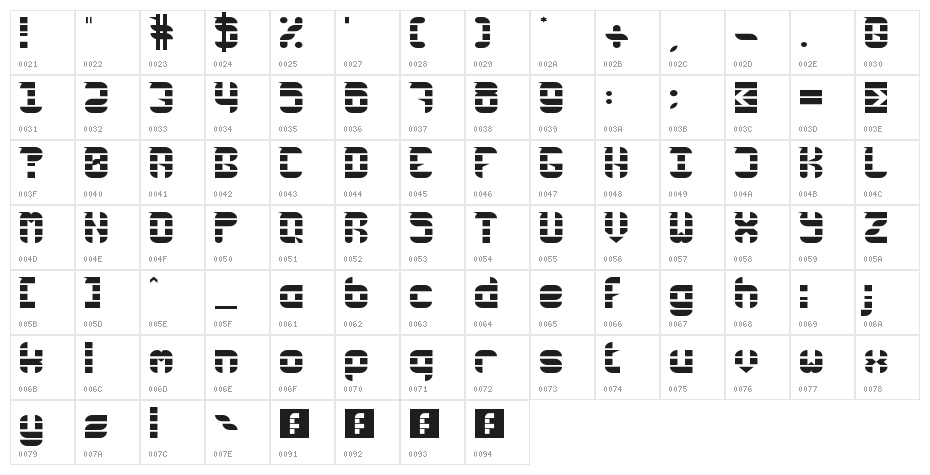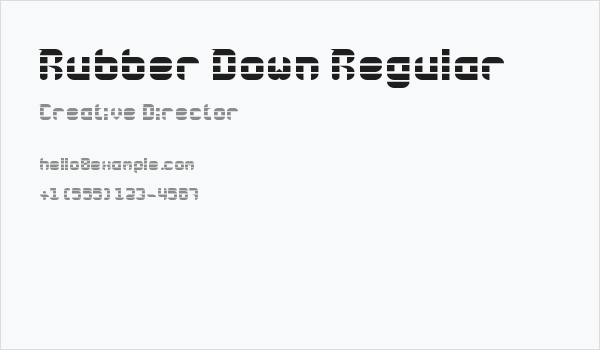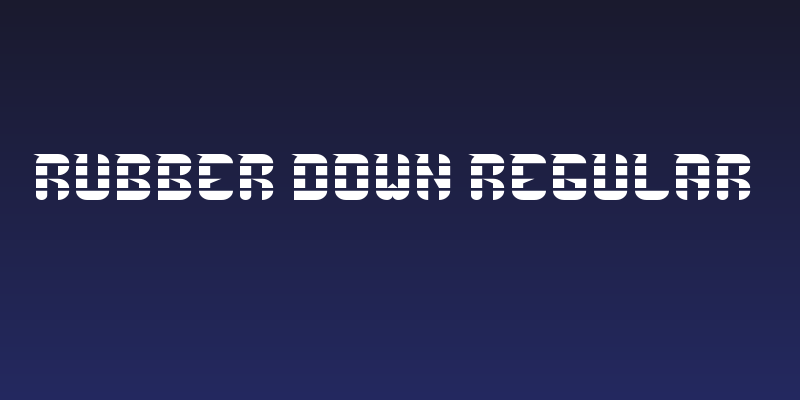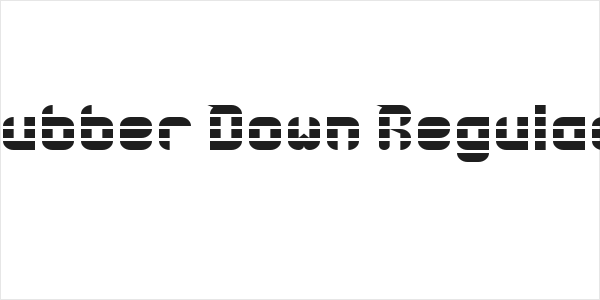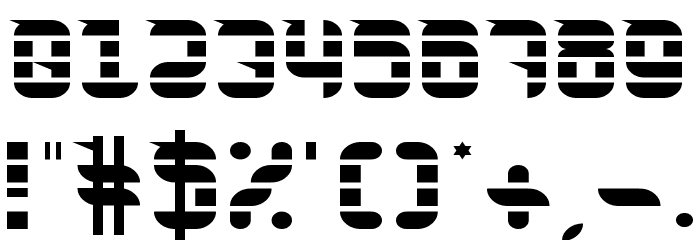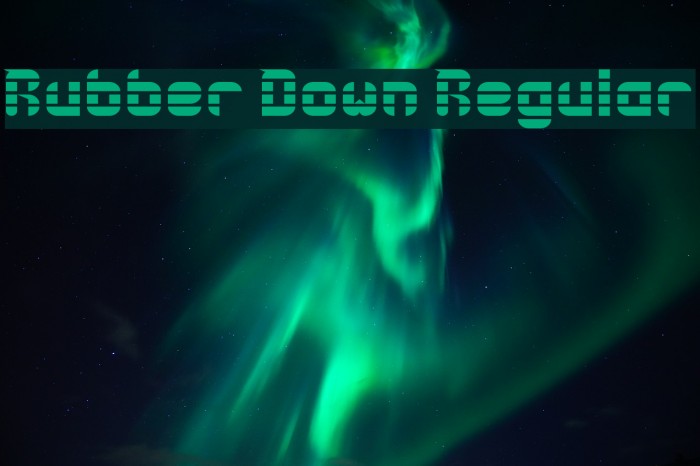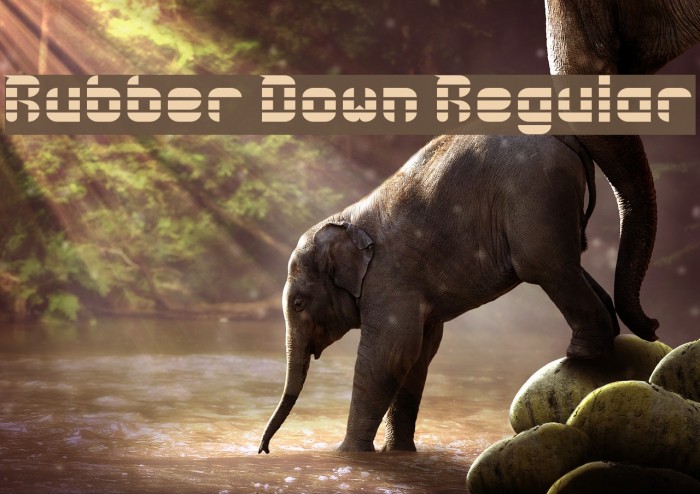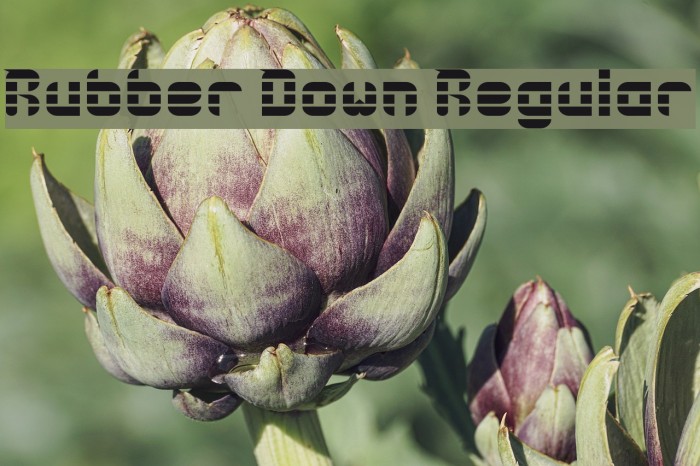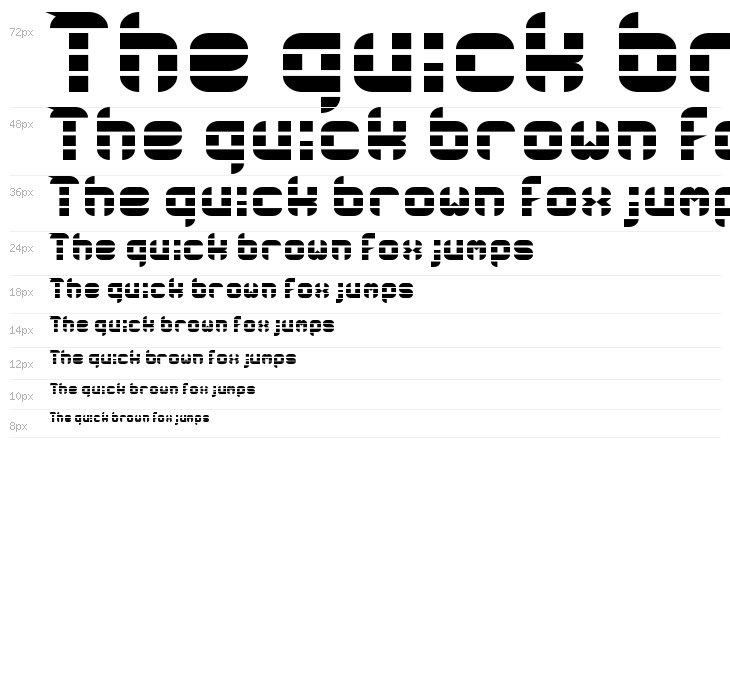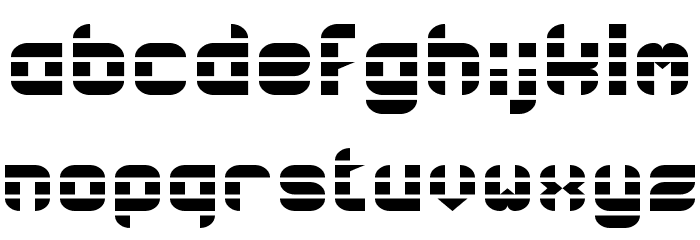
Rubber Down Regular Font
Rubber Down Regular Description
This font features a bold, geometric design with a distinct stencil-like appearance. Each character is composed of solid, blocky shapes with horizontal cuts that create a segmented look. The uppercase and lowercase letters maintain a consistent style, emphasizing a modern and industrial aesthetic. Numbers and special characters follow the same pattern, ensuring uniformity across all glyphs. The font's unique style makes it stand out, offering a futuristic and edgy vibe suitable for creative projects.
| Proposed Projects | Ideal for branding, posters, album covers, and any project needing a modern, industrial touch. |